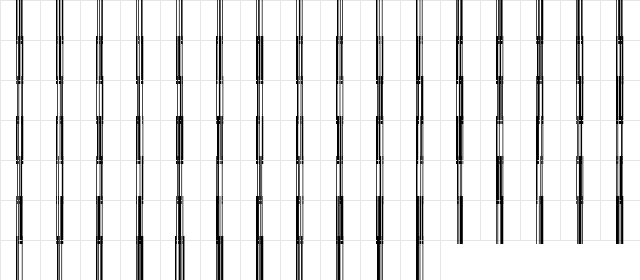
Code-128-DH Normal Font Preview
Code-128-DH Normal
Design Context for Code-128-DH Typeface
Code-128-DH uses fixed-width spacing throughout, giving it the structured, systematic character associated with coding environments and technical documentation.
Well-suited to data-driven dashboards, coding tutorials, and any design that wants to reference the world of programming.